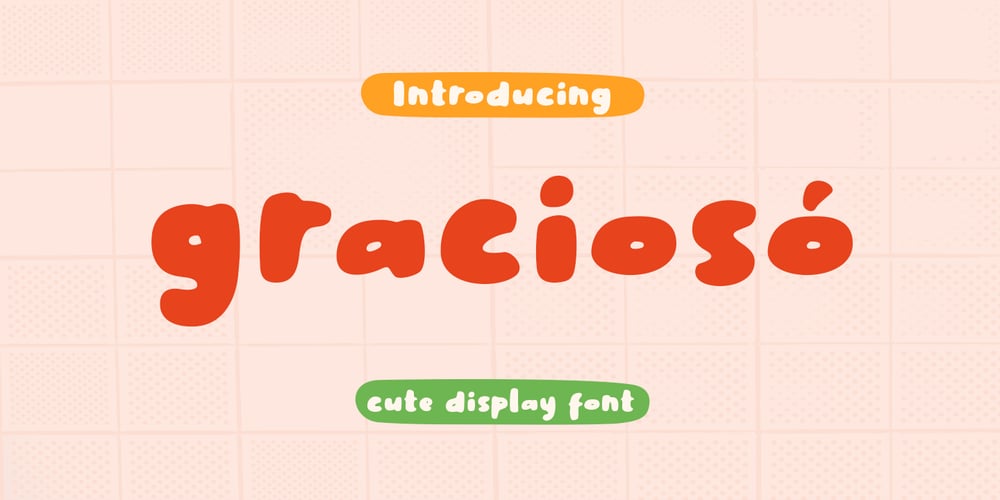
Gracioso Font Family was designed by Juni Fadil Putra and published by FadeLine Studio. Gracioso contains 1 styles and family package options. Introducing! Gracioso is a new cute and funny display font. This font adopts a bold, cute, firm, and trendy style. Very suitable to meet your various design needs that are trending now.